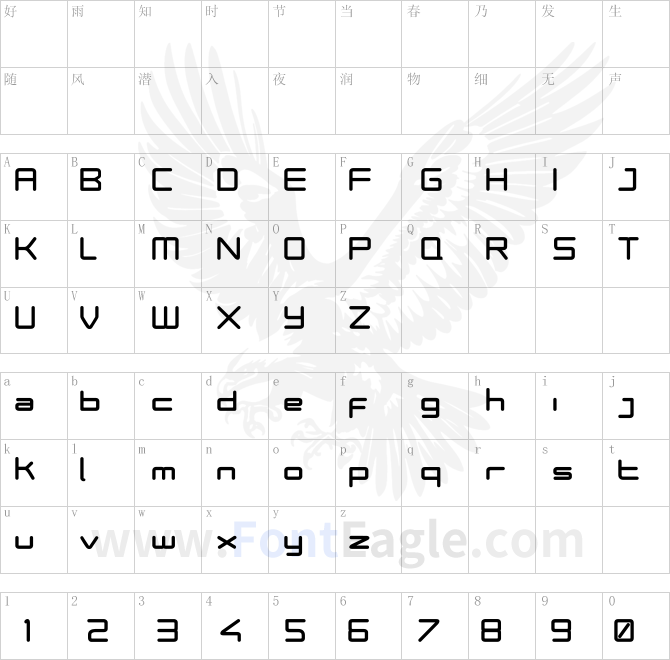
PhutureODC-Black is a great font, widely used in graphic design, single-page menu design, poster design and other fields, and is deeply loved by designers.PhutureODC-Black download.